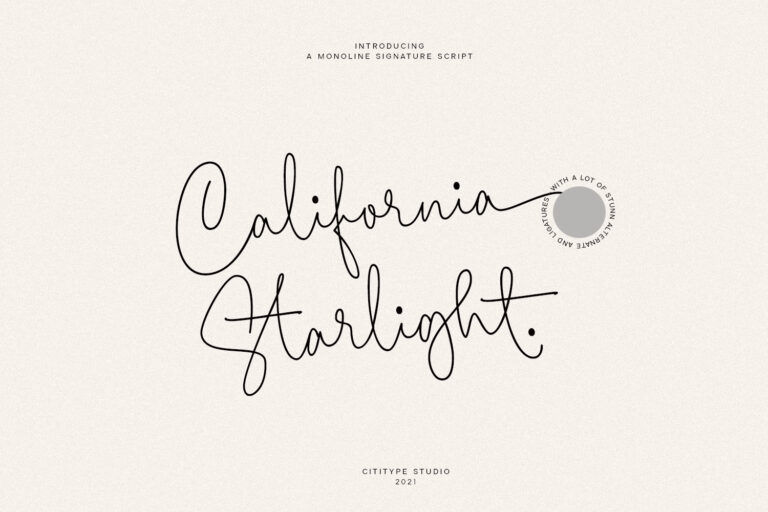
California Starlight
California Starlight is a monoline signature font. Look like natural strokes using a roller pen. This is an upright font with a gently stroke follows the flow of the text. The uppercase size is higher, it’s intended for a unique and prominent impression when used for ‘branding’,
Tall and prominent yet integrated in the gentle flow of the lowercase.
We propose this font for branding, logotype, photography quotes, wedding invitation cards and merchandise, quote writing, craft projects, and various other unique prints.
Stylistic Set Alternate (SS01 and SS02) is a swash at the beginning and end of the lowercase, also equipped with ligatures to add a unique impression and natural strokes. modern, sophistics and natural make this font a must have.